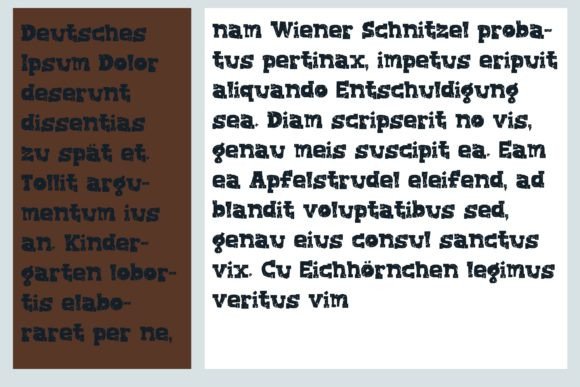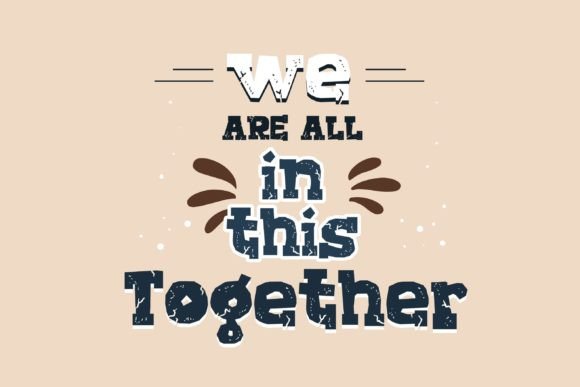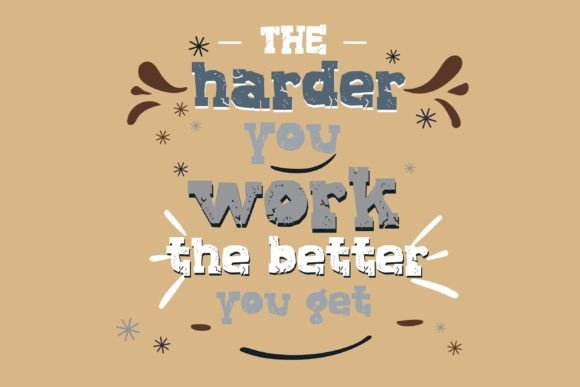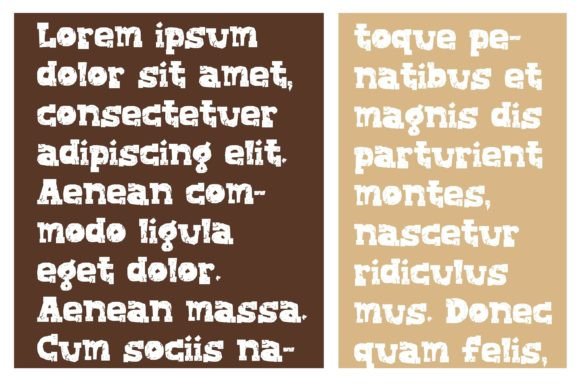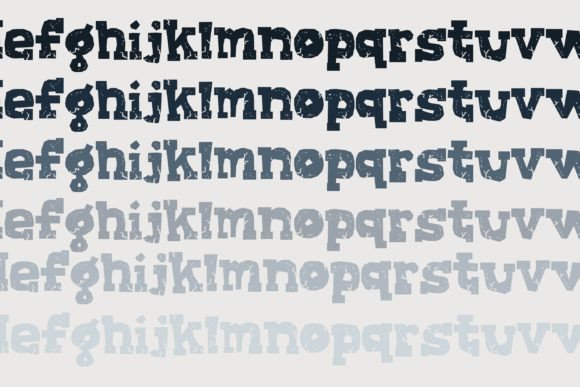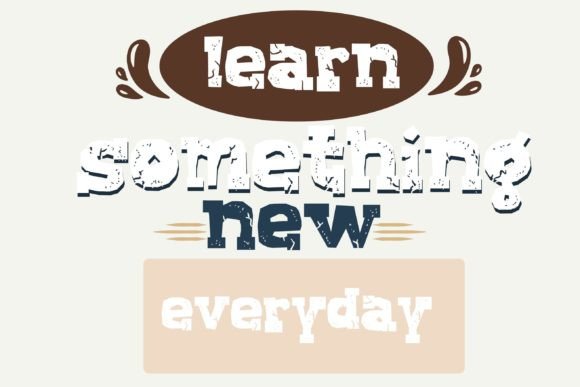
Dad Rockalot Font: The Perfect Choice for Traditional and Stable Designs
Are you looking for a font that exudes strength, stability, and a touch of tradition? Look no further than the Dad Rockalot font. This friendly font is designed to resemble building blocks, making it perfect for projects that require a classic and reliable feel. In this article, we’ll explore the features of the Dad Rockalot font, its uses, and why it’s a great choice for designers and crafters.
What is Dad Rockalot Font?
Dad Rockalot font is a unique and charming typeface that is reminiscent of building blocks. The font features little feet on the bottom of the letters and small decorative lines at the ends, giving it a classic and sturdy look. The font’s design is inspired by traditional typography, making it perfect for projects that require a touch of nostalgia and stability.
Key Features of Dad Rockalot Font
• Strong and Sturdy Design: The Dad Rockalot font has a robust design that makes it perfect for headlines, titles, and other display text.
• Little Feet and Decorative Lines: The font features little feet on the bottom of the letters and small decorative lines at the ends, giving it a classic and reliable feel.
• Traditional and Stable Look: The font’s design is inspired by traditional typography, making it perfect for projects that require a touch of nostalgia and stability.
• Easy to Read: The Dad Rockalot font is easy to read, making it perfect for body text and other long-form content.
Uses of Dad Rockalot Font
The Dad Rockalot font is versatile and can be used in a variety of projects, including:
• Branding and Logo Design: The font’s strong and sturdy design makes it perfect for logos and branding projects that require a classic and reliable feel.
• Headlines and Titles: The font’s bold and attention-grabbing design makes it perfect for headlines and titles.
• Packaging Design: The font’s traditional and stable look makes it perfect for packaging design projects that require a touch of nostalgia.
• Crafting and DIY Projects: The font’s friendly and approachable design makes it perfect for crafting and DIY projects, such as handmade cards and gift tags.
Why Choose Dad Rockalot Font?
There are many reasons why you should choose the Dad Rockalot font for your next project. Here are a few:
• Unique and Charming Design: The font’s unique and charming design sets it apart from other fonts and makes it perfect for projects that require a touch of personality.
• Versatile: The font is versatile and can be used in a variety of projects, from branding and logo design to packaging design and crafting.
• Classic and Reliable Feel: The font’s traditional and stable look makes it perfect for projects that require a touch of nostalgia and stability.
In conclusion, the Dad Rockalot font is a great choice for designers and crafters who are looking for a font that exudes strength, stability, and a touch of tradition. The font’s unique and charming design, combined with its versatility and ease of use, make it perfect for a variety of projects. Whether you’re working on a branding project, packaging design, or crafting and DIY project, the Dad Rockalot font is sure to be a great choice.